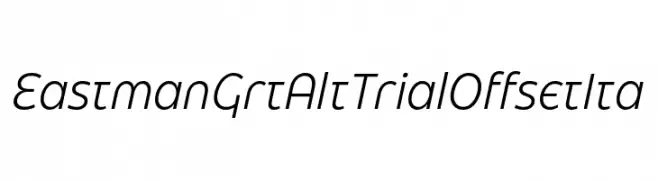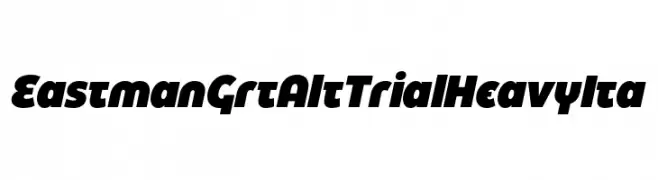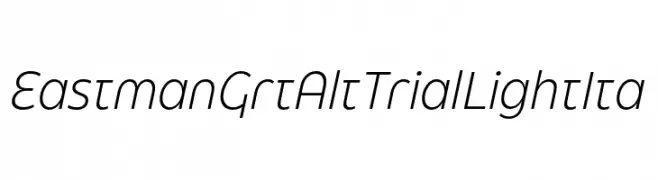
A bold, rounded font with a playful and approachable style.
A modern, light sans-serif font with a clean and minimalist style.
A bold, rounded sans-serif font with smooth curves and uniform strokes.
A bold, modern sans-serif font with strong, clean lines and excellent readability.
A sleek, modern font with thin strokes and a slight slant for a dynamic look.
A sleek, modern sans-serif font with a slight italic slant.
A bold, italic font with a dynamic and impactful style.
A modern, geometric sans-serif font with rounded edges and balanced spacing.
A modern, light, and slightly italicized font with rounded edges and consistent thin strokes.